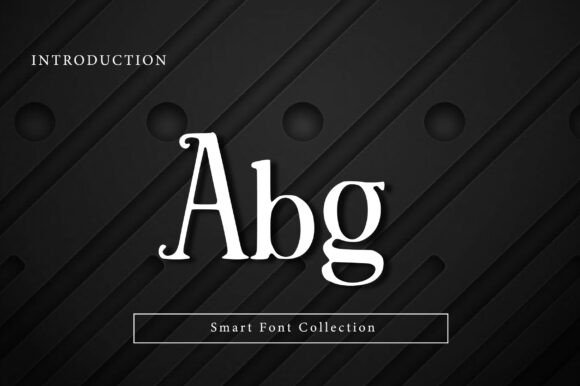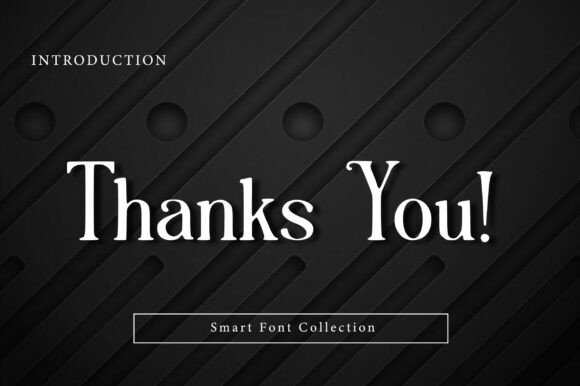
Introduction to Ornaviq Font
As a designer, there’s nothing quite like the thrill of creating a stunning visual identity for a brand or project. It’s that moment when all the elements come together – the perfect balance of color, texture, and typography – that makes your heart skip a beat. And, let’s be honest, the right font can make all the difference. That’s where the Ornaviq Font comes in – a true game-changer for any creative project.
With its elegant and decorative serif display font, Ornaviq offers a level of sophistication and style that’s hard to find in other design resources. Its refined curves and classic serif structure make it perfect for creating high-end designs that feel both luxurious and timeless. Whether you’re working on a luxury logo, fashion branding, or premium product design, Ornaviq Font is the perfect tool to add a stylish signature look to your work.
What sets Ornaviq apart is its ability to balance elegance and uniqueness, making it a valuable asset for any designer looking to elevate their creative project. Plus, with its high-quality design and transparent background, it’s easy to download and use in both print and digital projects. So why settle for anything less when you can have the Ornaviq Font on your side?
Key Features of Ornaviq Font
- High-quality, unique font design suitable for creative projects and design resources.
- Unique characteristics include a modern aesthetic and versatile font styles.
- Perfect for designers seeking a high-quality, free design resource for their creative projects.
Honest Review: Ornaviq Font
I recently stumbled upon the Ornaviq Font and was excited to give it a try in my latest design project. As a designer, I’m always on the lookout for high-quality fonts that can elevate my work and help me achieve the desired aesthetic.
What works well with the Ornaviq Font is its versatility and modern design. It’s perfect for creating a clean and minimalist look, making it a great addition to any creative project. The font is also incredibly easy to use, with a transparent background that allows for seamless integration into any design.
- ✨ Perfect for modern and minimalist designs
However, I do have a few minor quibbles with the Ornaviq Font. While it’s a great resource for designers, it’s not without its limitations. The font can be a bit too plain for some designs, and it may not be the best choice for projects that require a lot of bold typography.
Overall, I’m impressed with the Ornaviq Font and would recommend it to designers looking for a high-quality, modern font. With its free download and transparent background, it’s a great resource to have in your design arsenal.
Common Use Cases for Ornaviq Font
Use the Ornaviq Font for a wide range of creative projects, including social media graphics, presentations, logos, brochures, infographics, and documents. Its high quality and transparent background make it an ideal choice for designers and non-designers alike.